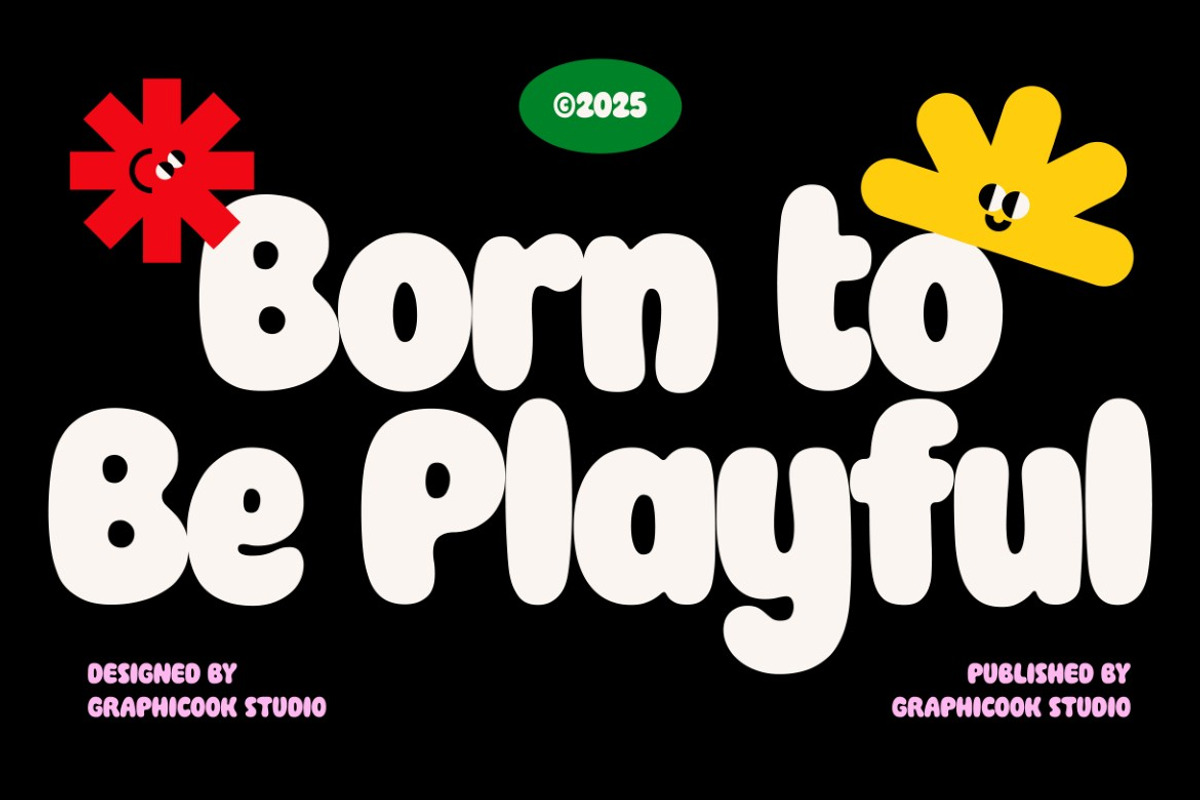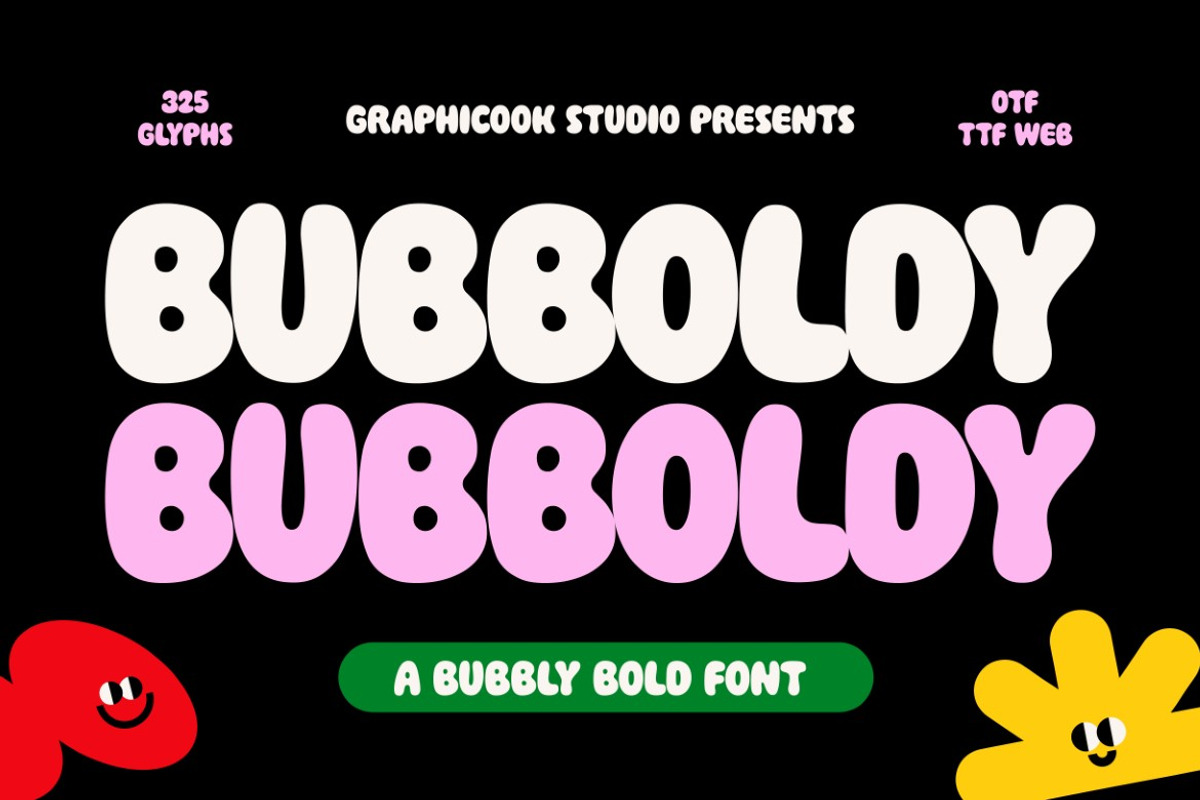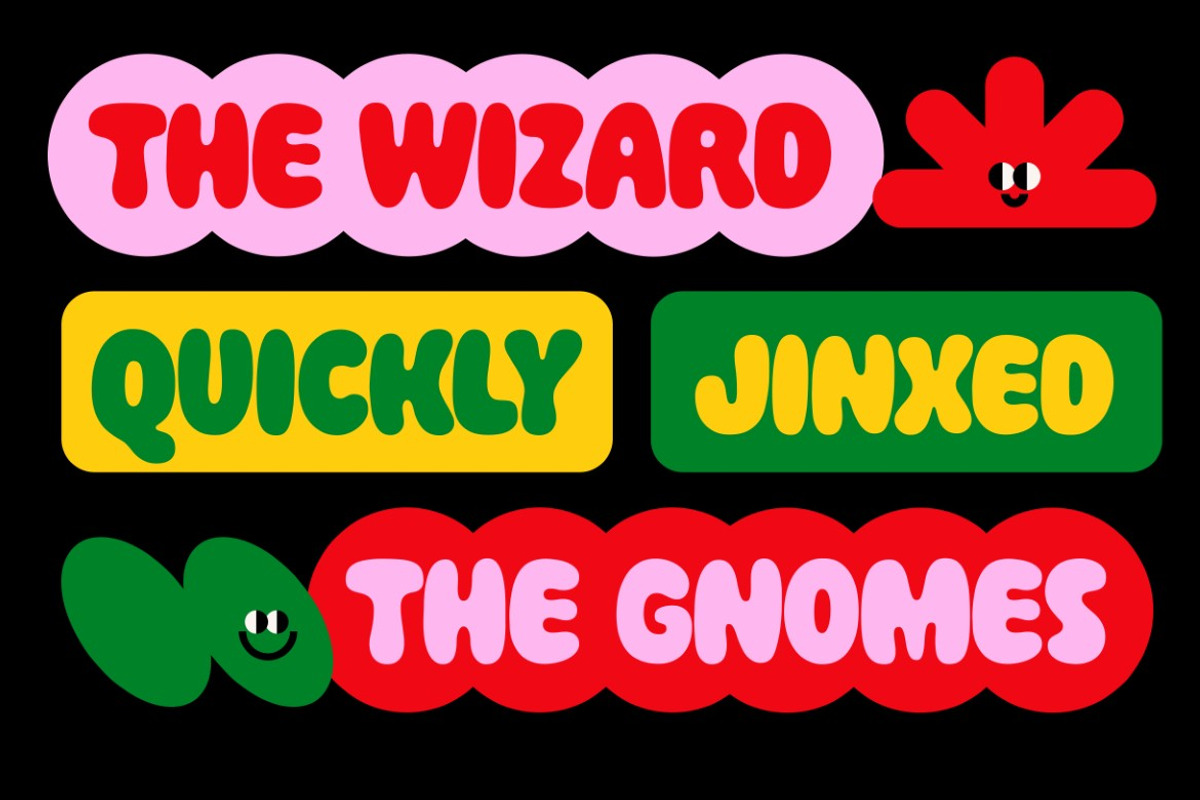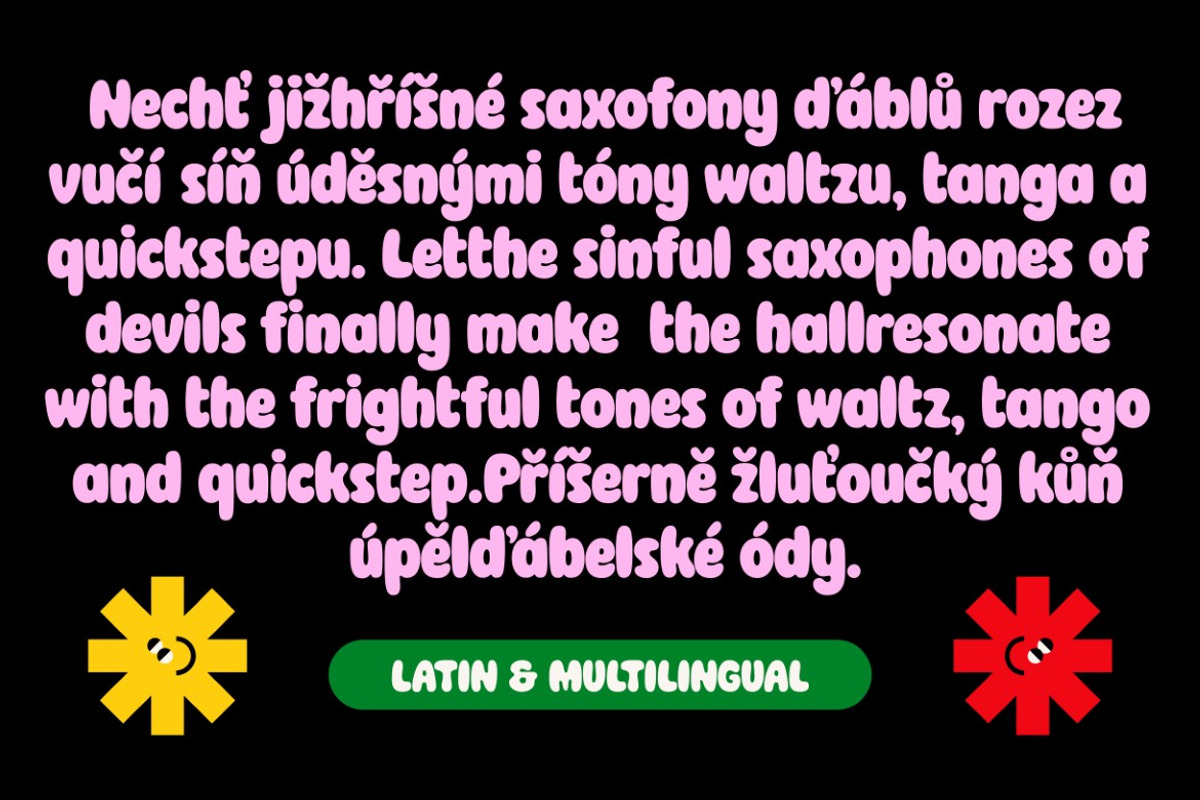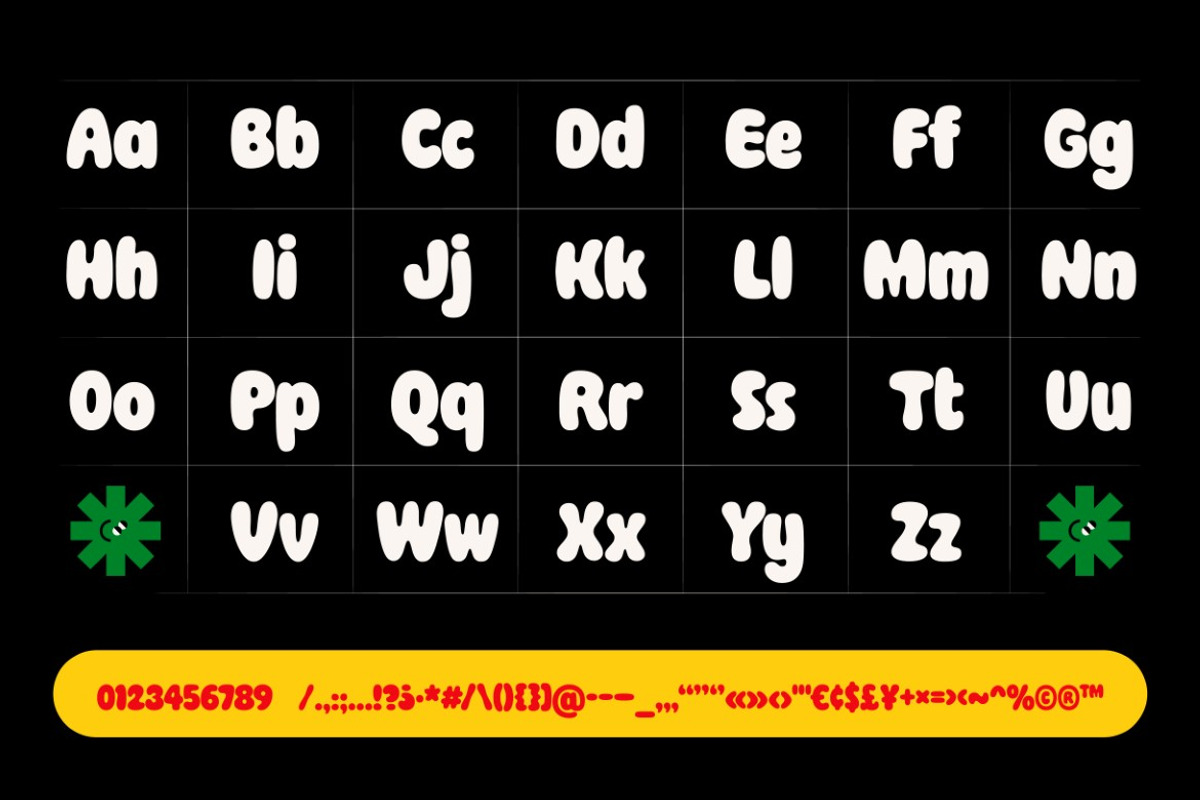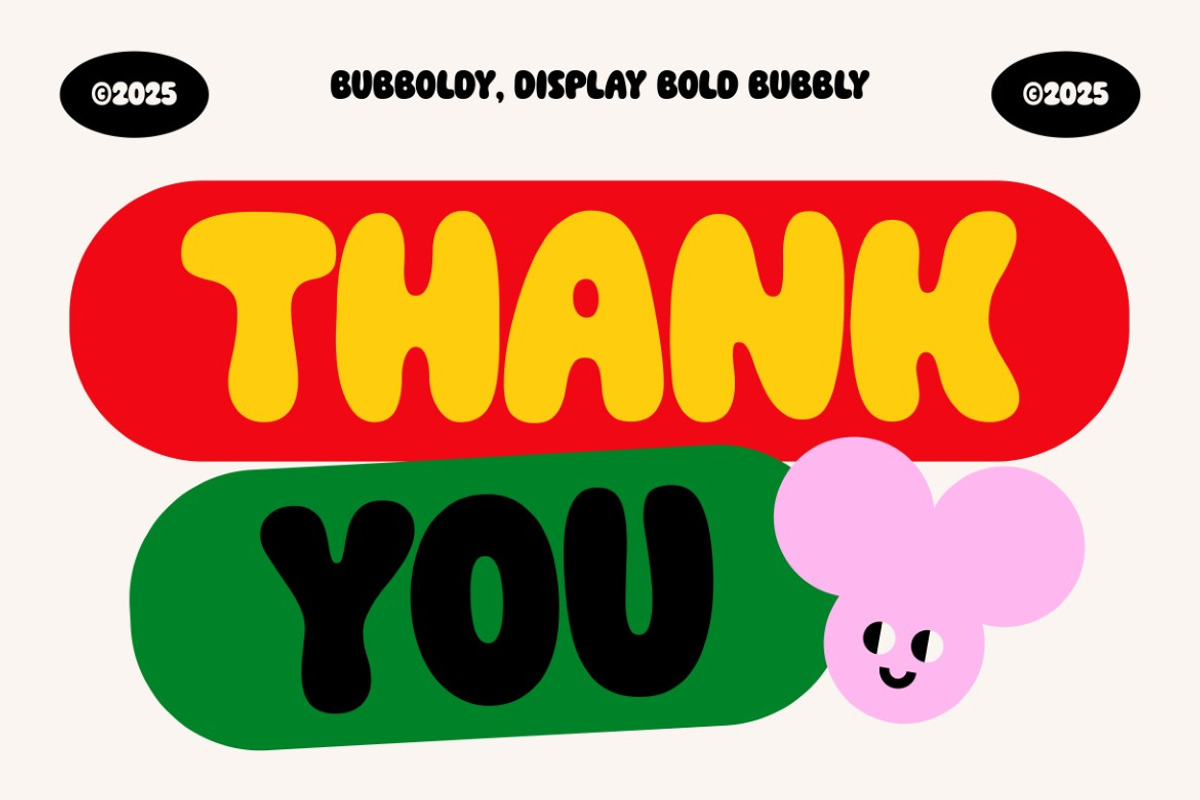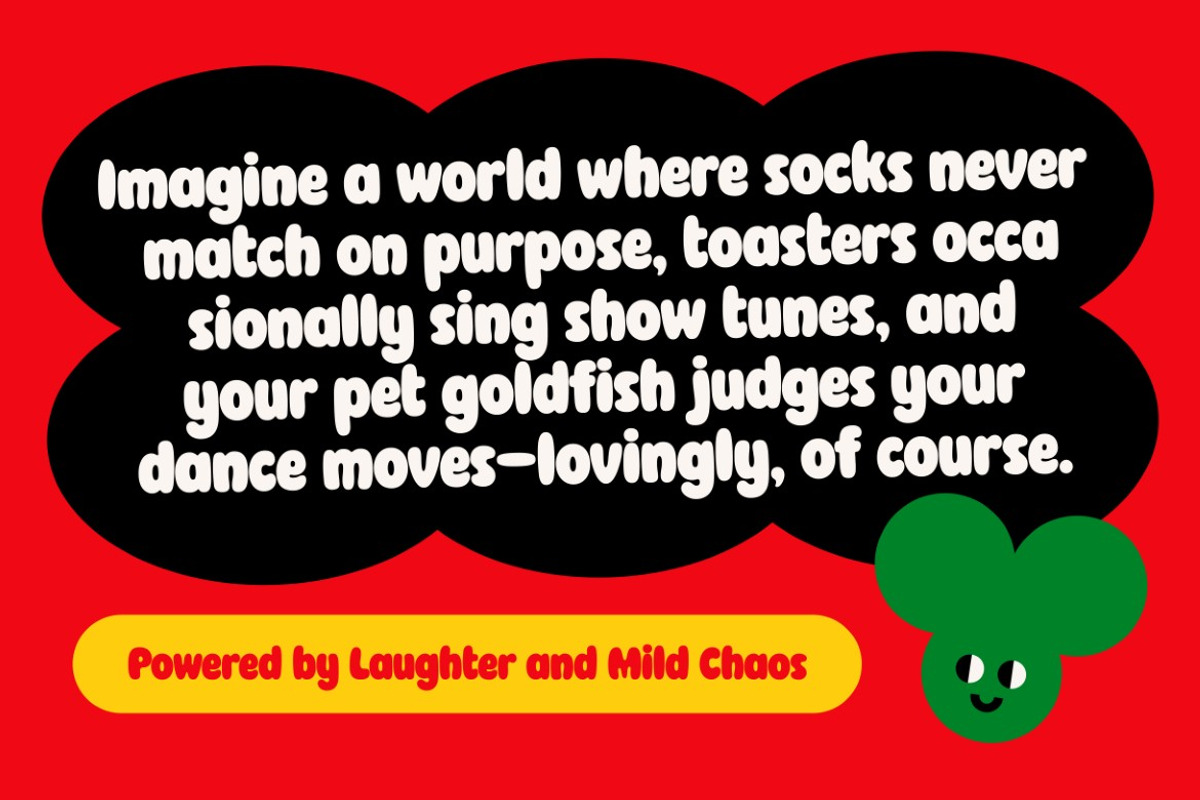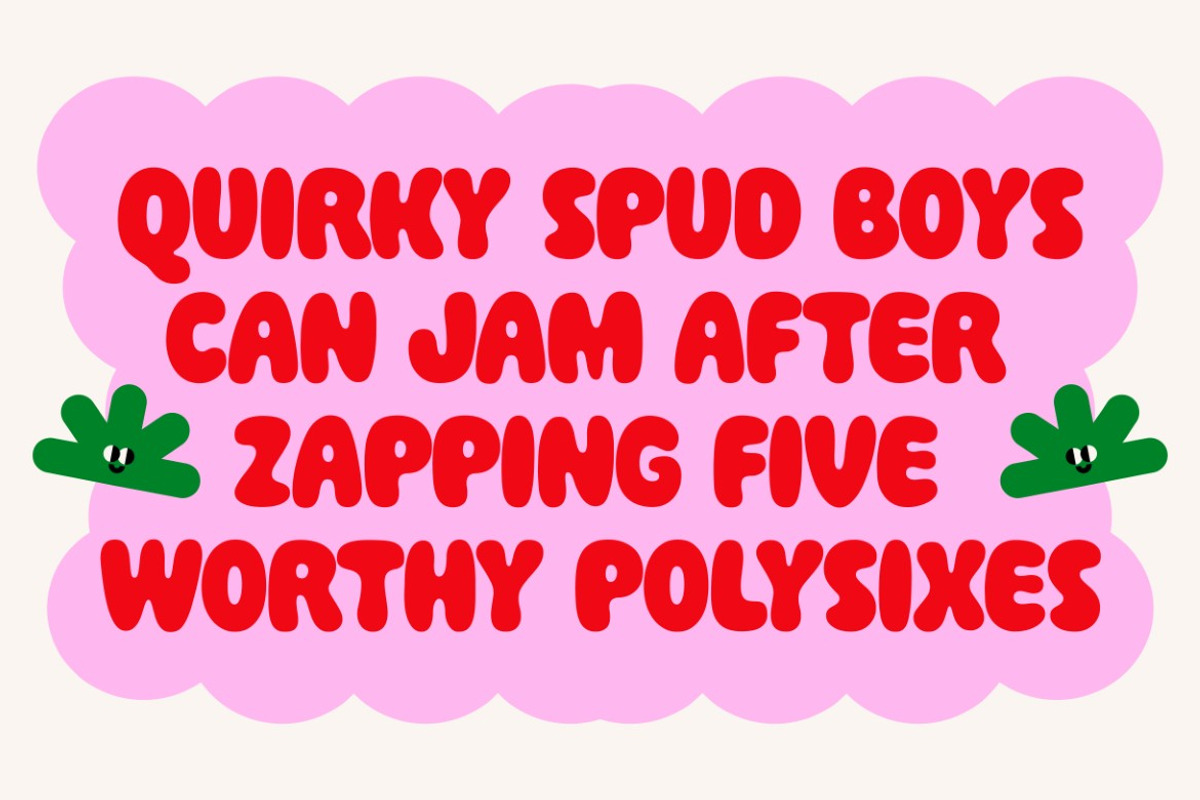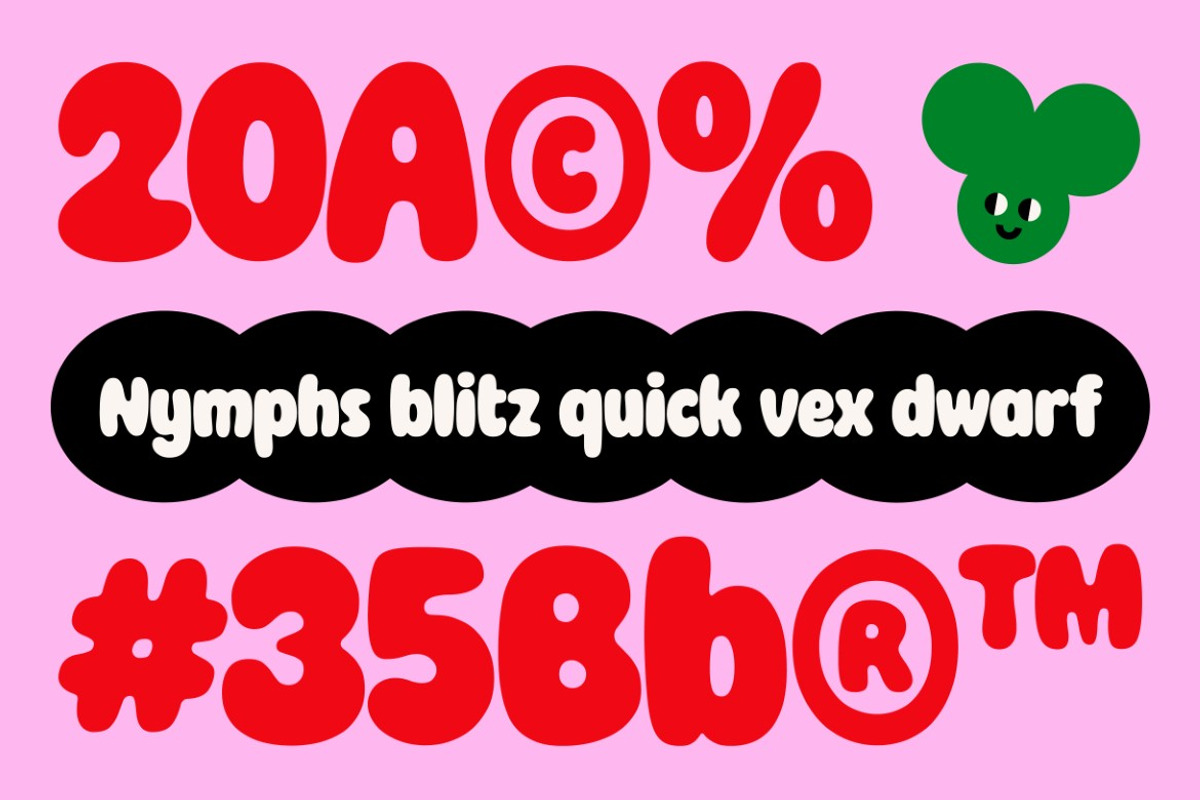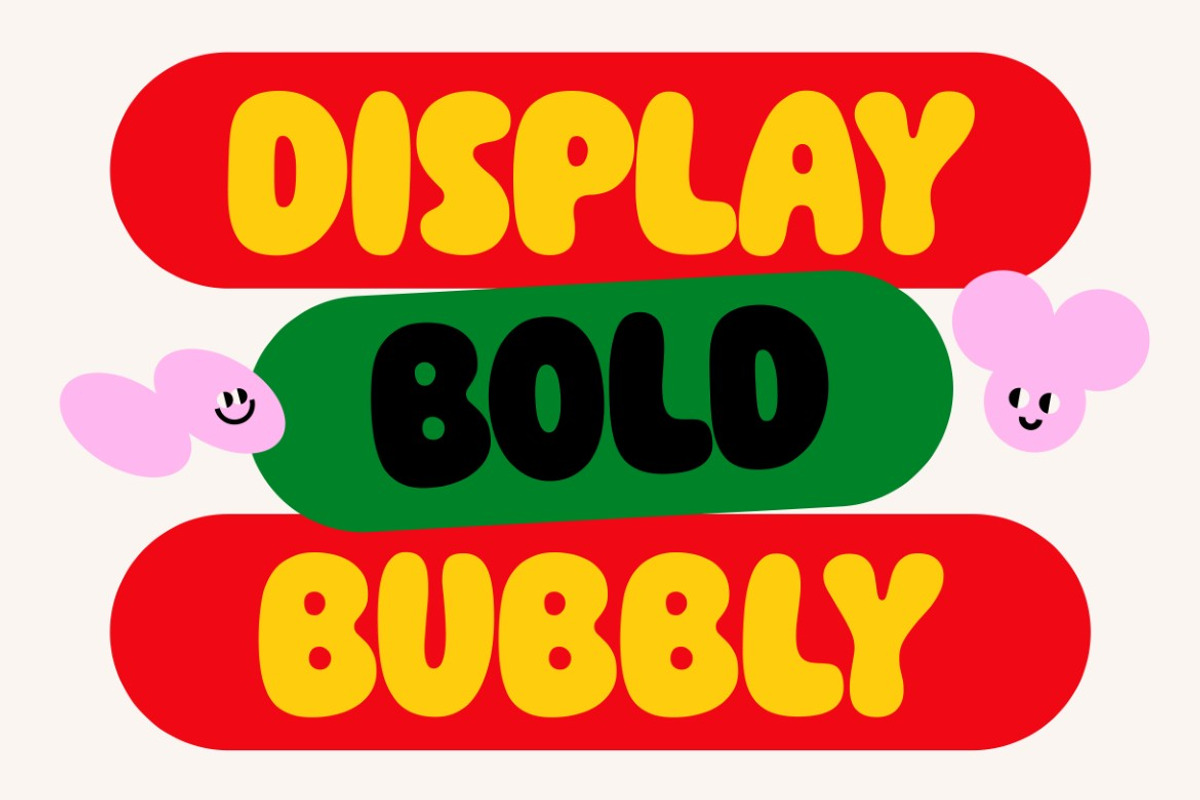
Bubboldy
Bubboldy is a bubbly font with bold, dynamic shapes that give off a handmade, playful energy. Great for asymmetrical, hand-drawn visuals and designs aimed at children.
It is perfect for headlines, logotypes, magazines, packaging, quotes, movies, games, cover albums, book covers, and flyers, it's a perfect solution for creating eye-catching designs that stand out in any context.